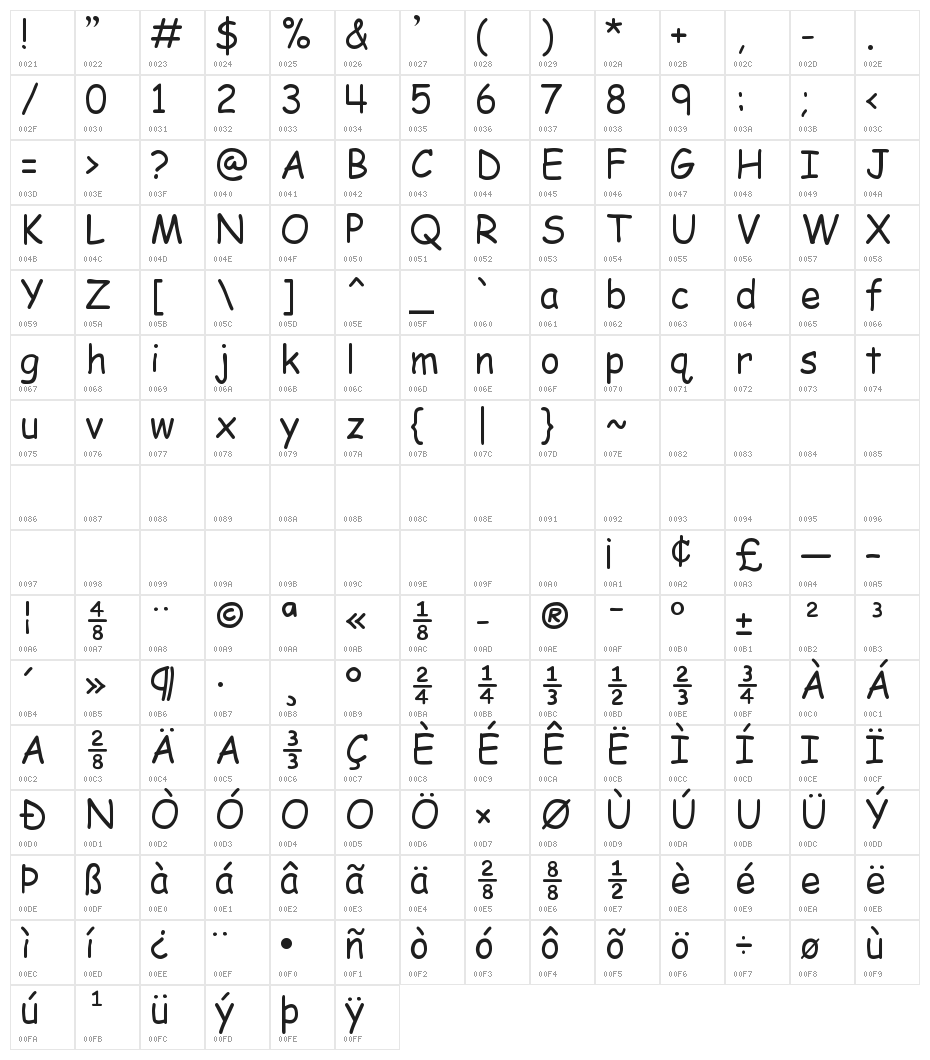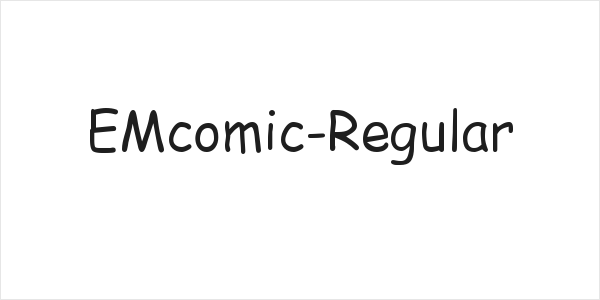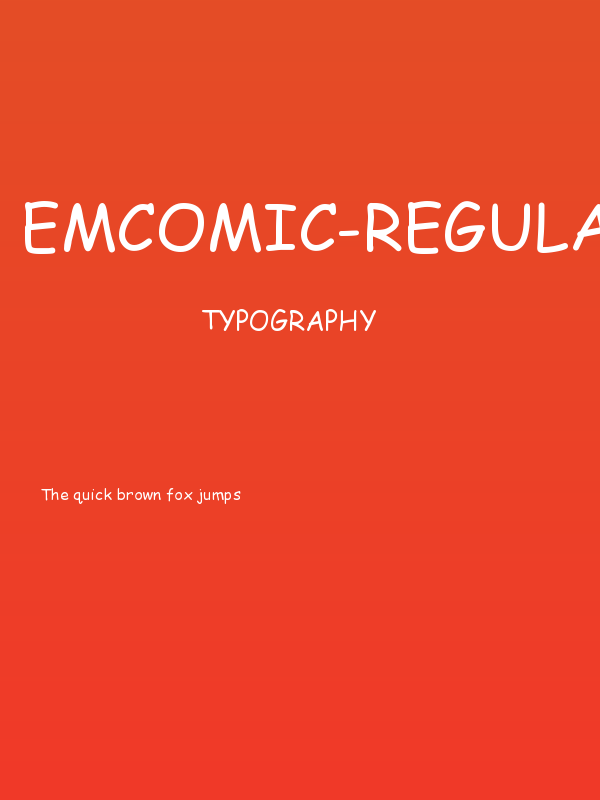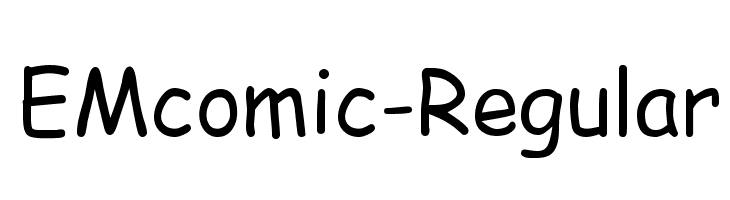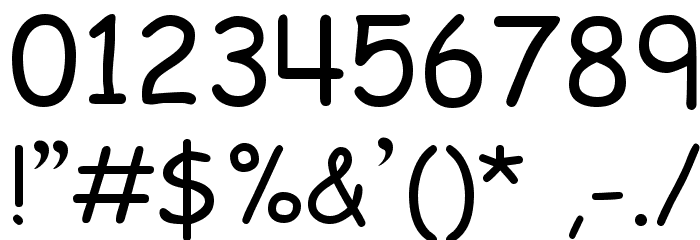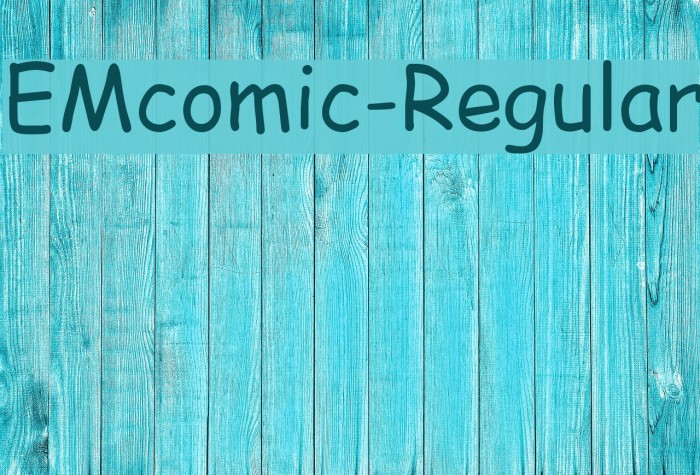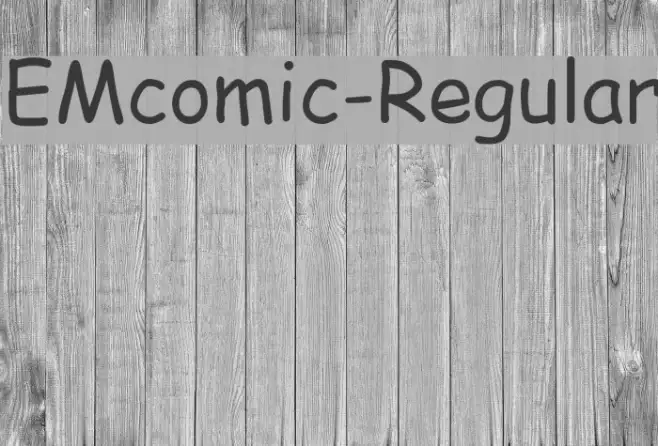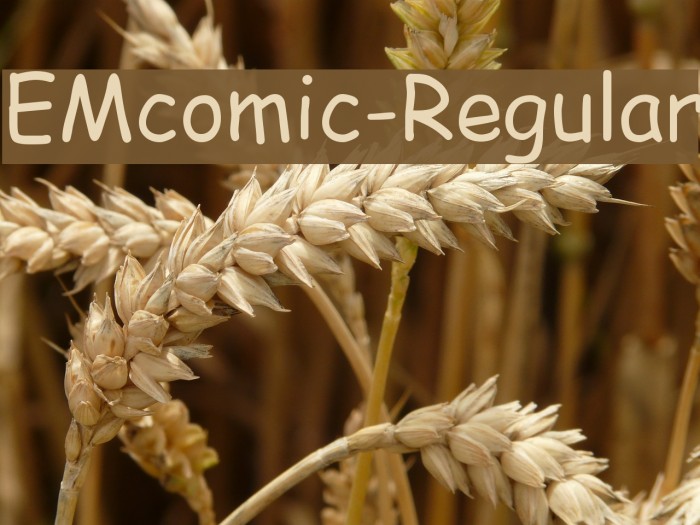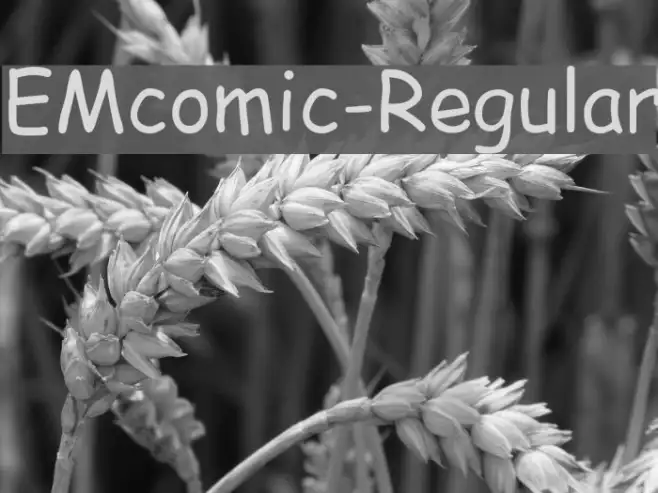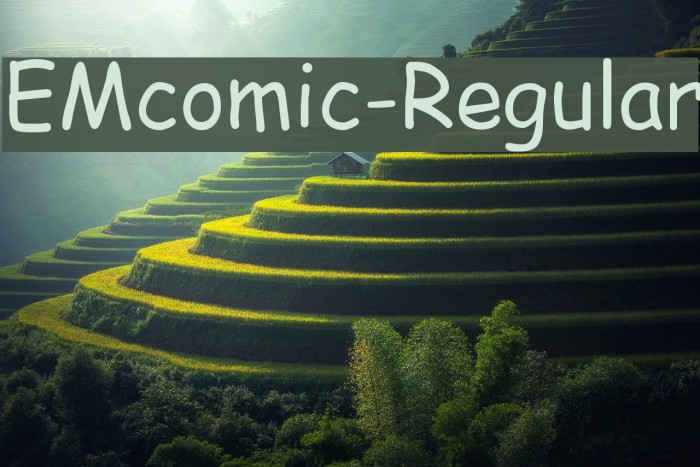
EMcomic-Regular Font
EMcomic-Regular Description
This font features a playful and informal style, reminiscent of comic book lettering. The characters are rounded and slightly irregular, giving them a hand-drawn appearance. The uppercase and lowercase letters maintain a consistent style, with smooth curves and a friendly demeanor. Numbers and special characters are designed to match the overall aesthetic, ensuring a cohesive look across all text elements. The font's simplicity and charm make it suitable for casual and lighthearted projects.
| Overall Style | Playful |
| Use Case | Headlines, Logos, Informal Text |
| Proposed Projects | Ideal for children's books, comic strips, playful branding, and informal invitations. |